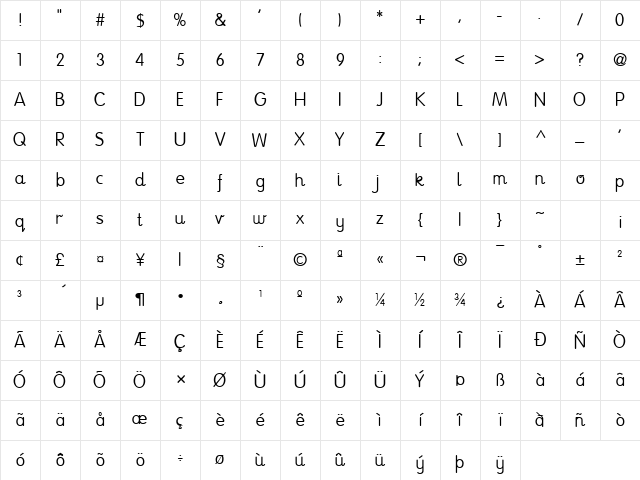
National Primary Normal
Design Context for National Primary
National Primary is a composed and adaptable typeface that performs quietly and consistently across a wide range of design contexts.
Pro Tip: Use National Primary in both headline and body roles to test its range before committing to a single application.